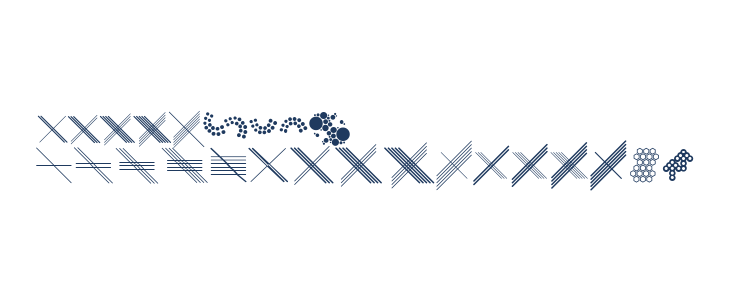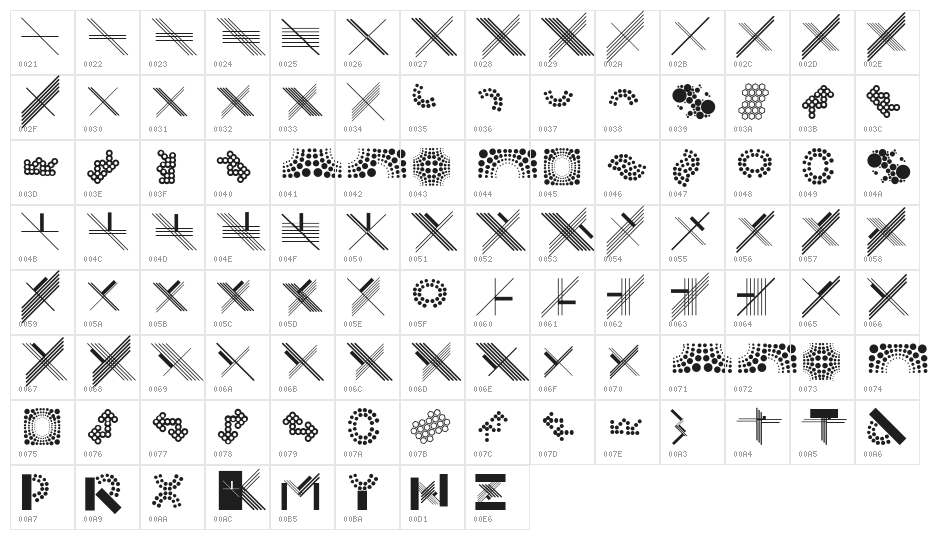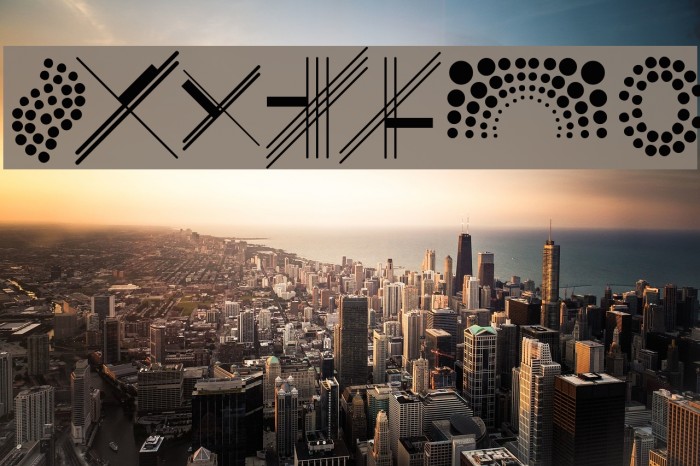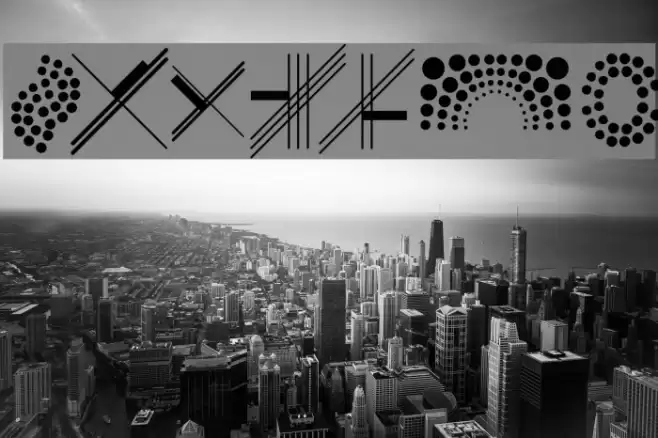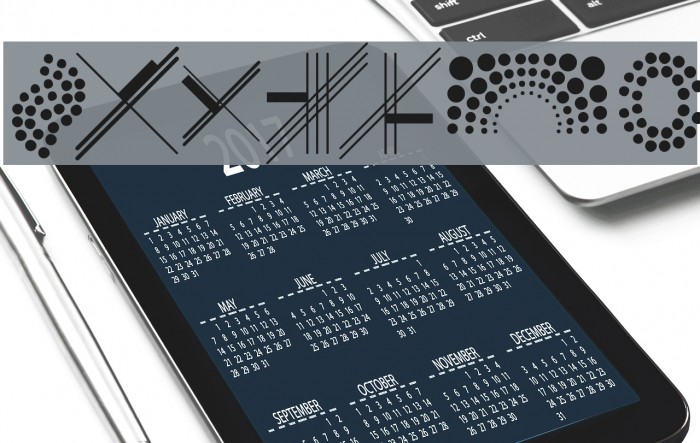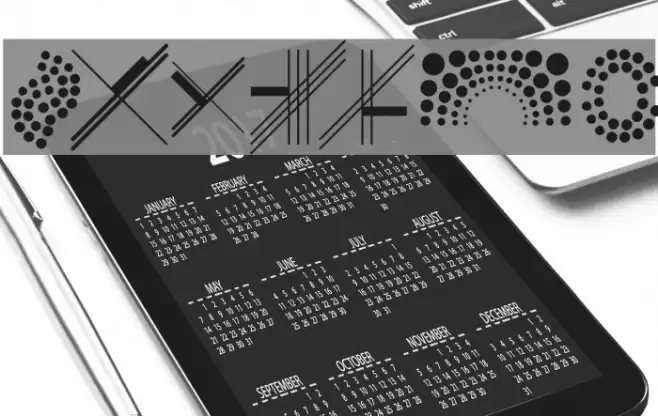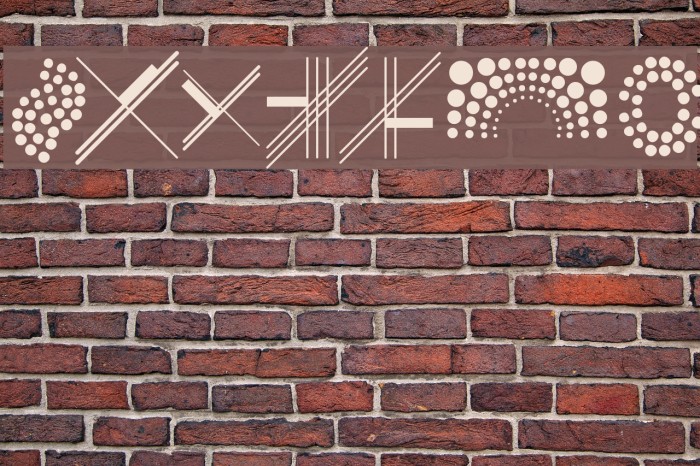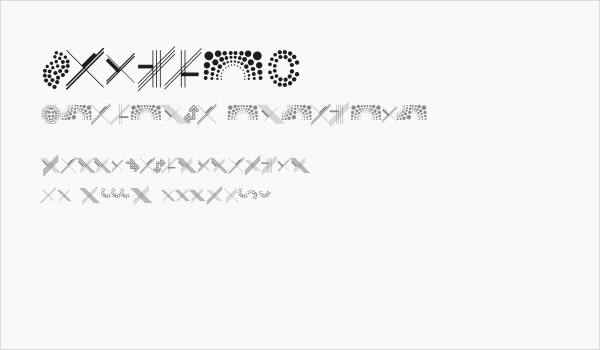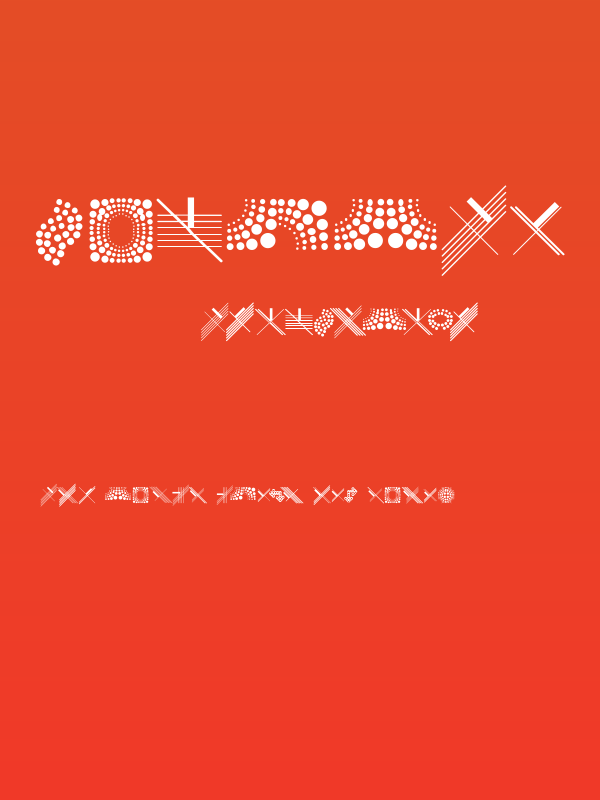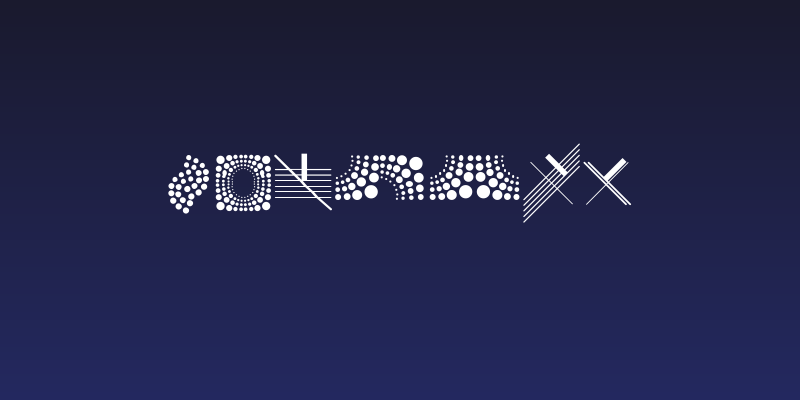
Geobatz Font
Geobatz Description
This design is a decorative and abstract representation rather than a traditional font. It features a combination of geometric shapes, including dots and lines, arranged in patterns that mimic the structure of letters and symbols. The design is highly stylized, with each character composed of intricate arrangements of circles and intersecting lines, creating a visually striking and modern appearance. The use of varying line thickness and dot sizes adds depth and texture, making it suitable for artistic and creative projects. The overall aesthetic is avant-garde, with a focus on visual impact rather than readability.
| Use Case | Artistic displays, creative branding, graphic design elements. |
| Proposed Projects | Ideal for artistic projects, modern art installations, graphic design elements, and creative branding. |